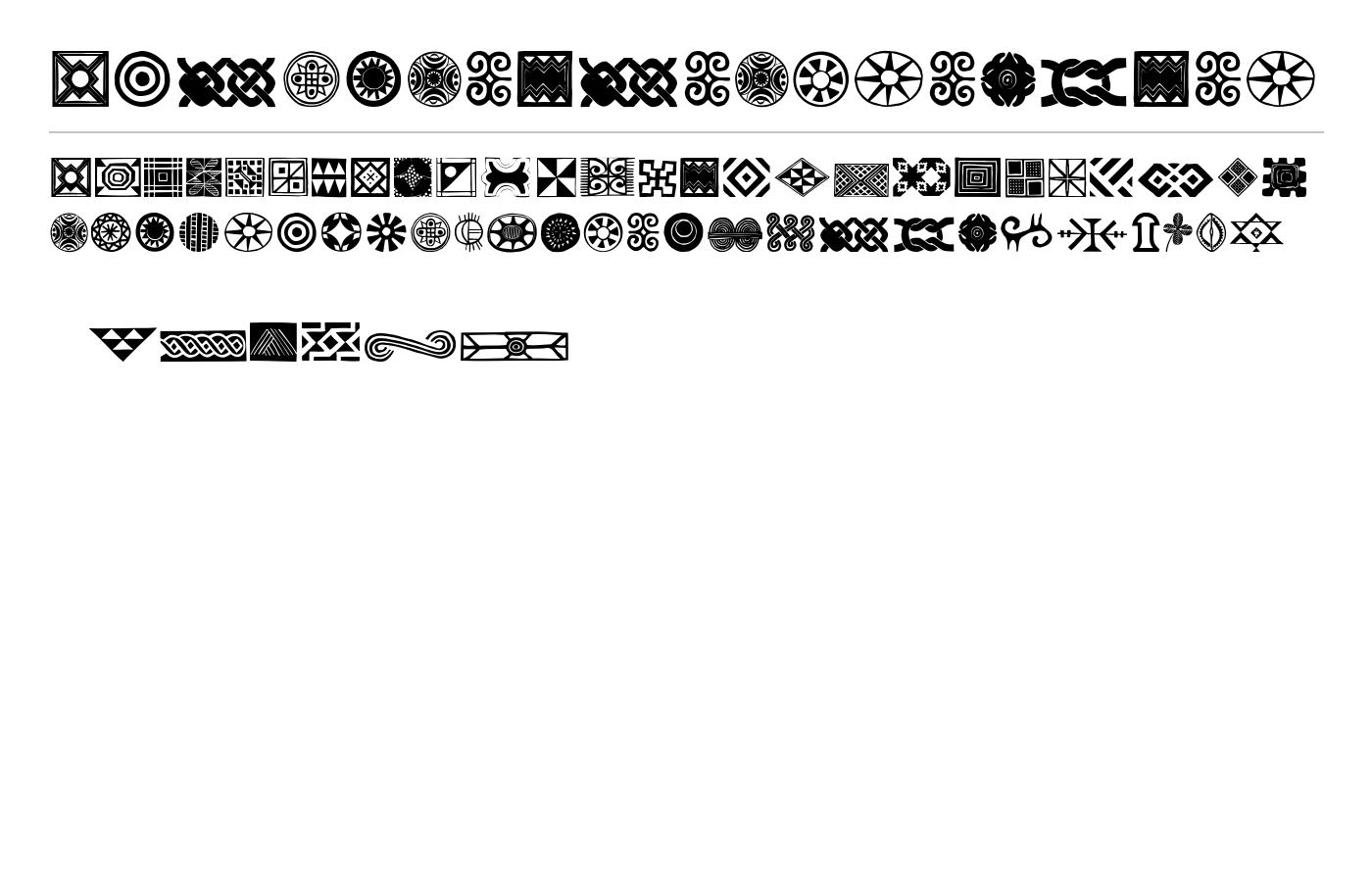
AfricanOrnamentsOne is a decorative symbol font featuring intricate, bold African-inspired geometric and ornate motifs. Its strong black shapes with detailed patterns offer a striking and cultural aesthetic perfect for adding ethnic flair and visual interest. This font works best for logos, packaging, posters, and designs that seek an artistic, traditional, or handcrafted feel.
AfricanOrnamentsOne Font
About AfricanOrnamentsOne Font